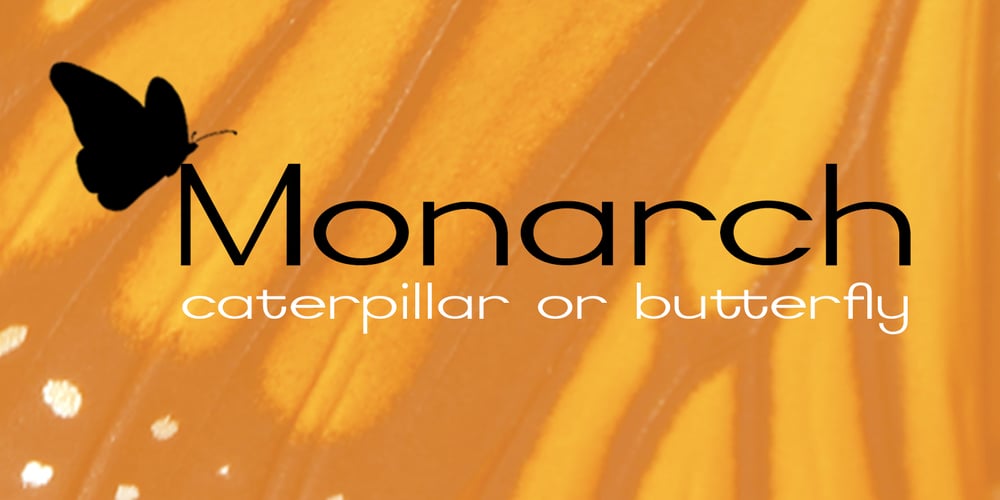
Monarch Font Family was designed by Ken Russell and published by Atlantic Fonts. Monarch contains 1 styles and family package options. Looking for a royally fun font? A dash of elegance with a dose of quirkiness – not unlike our modern day royal types.